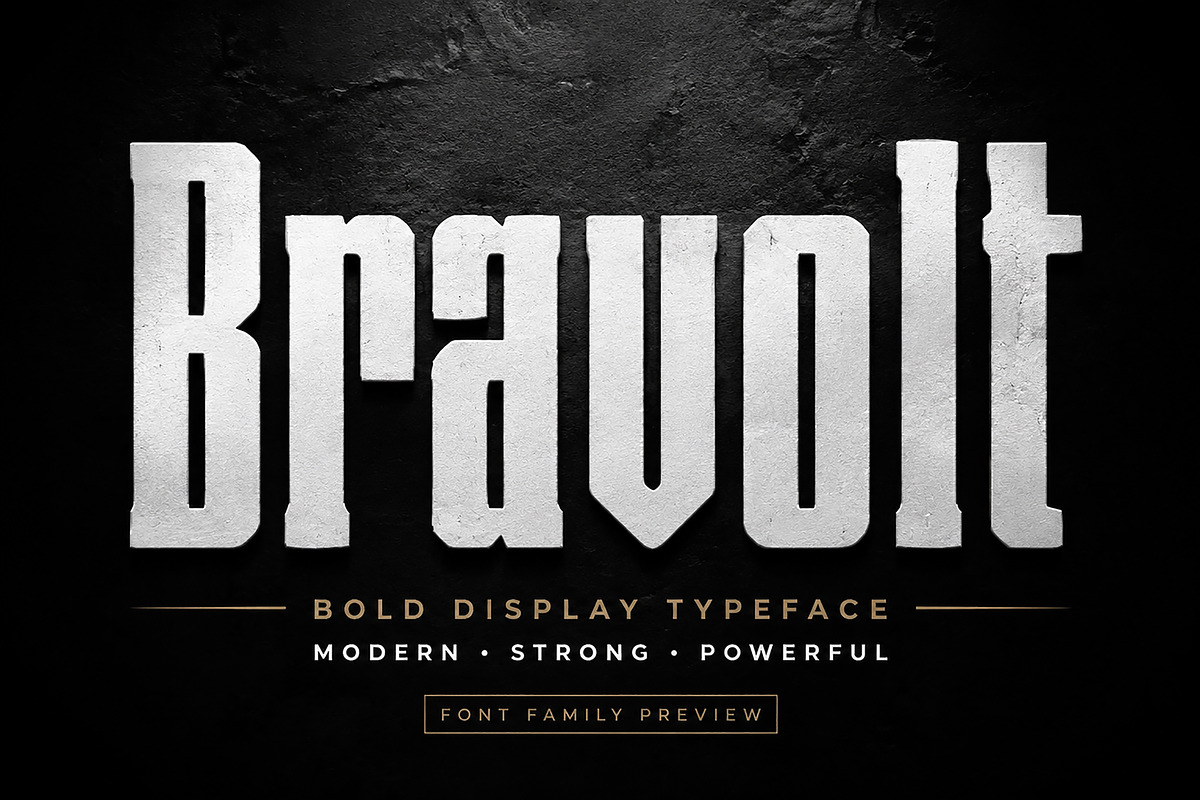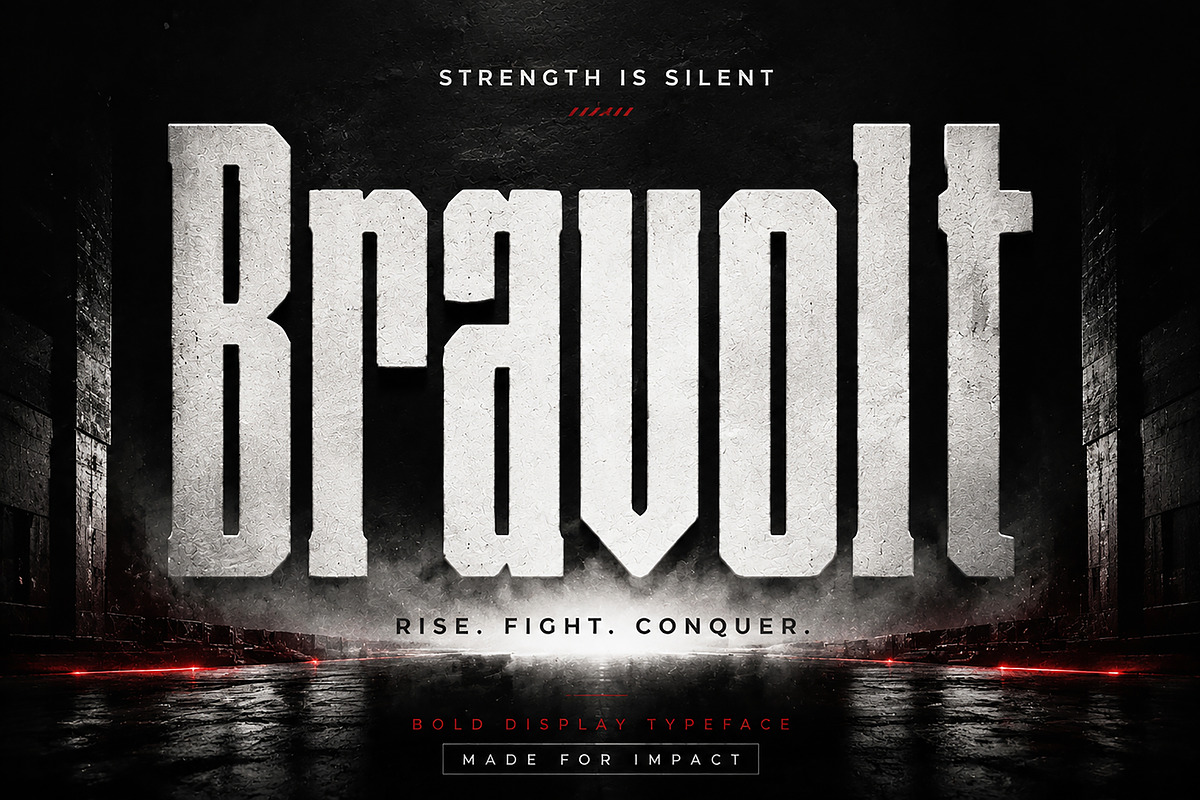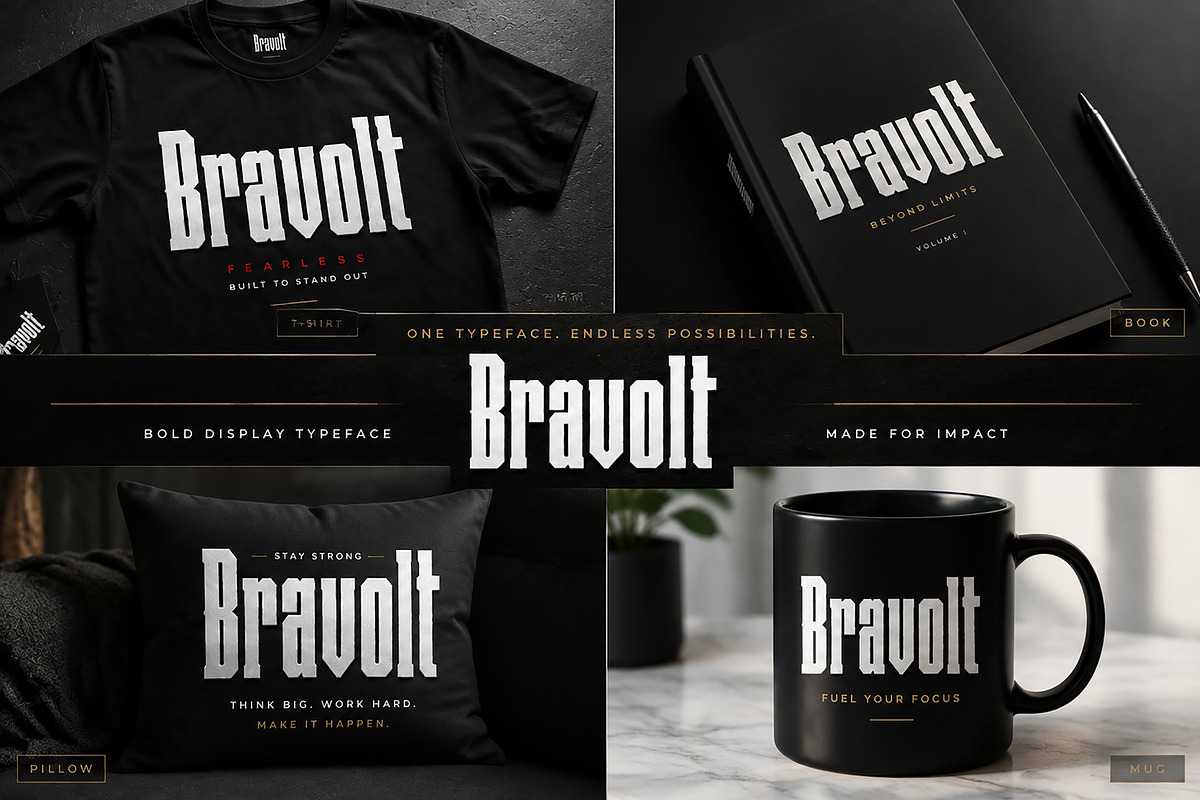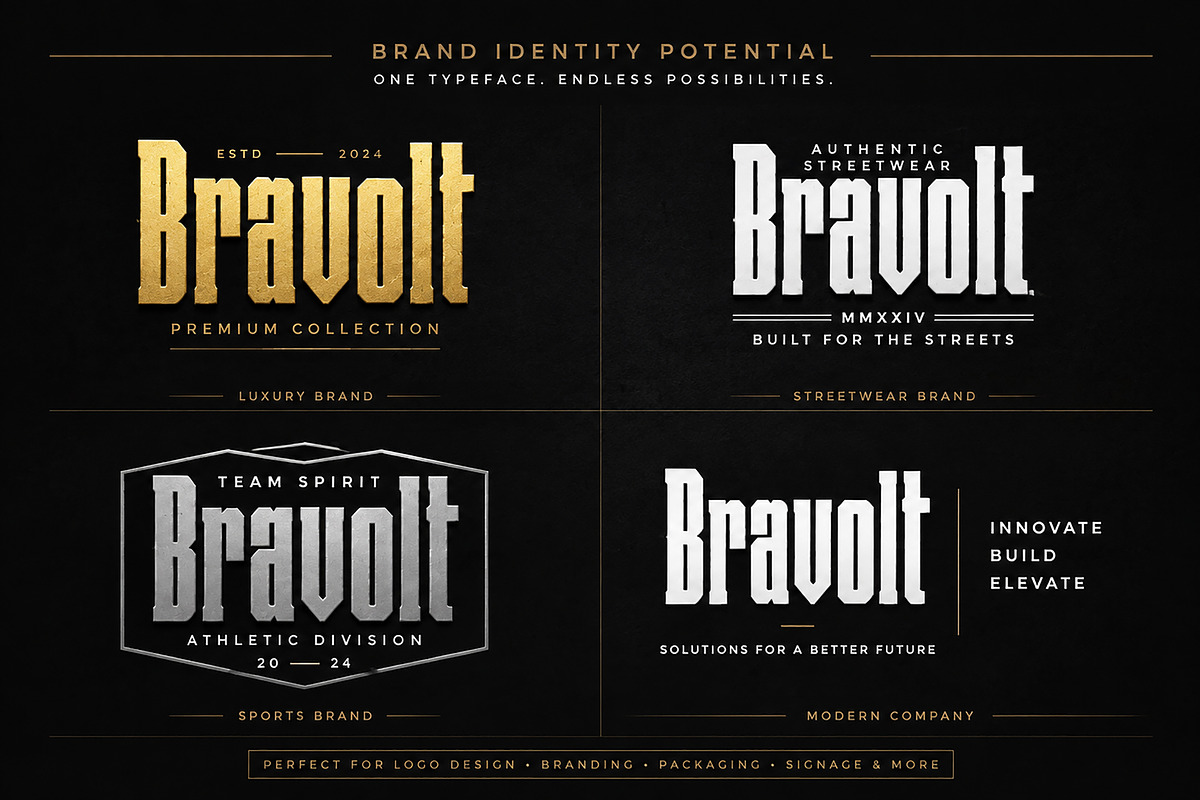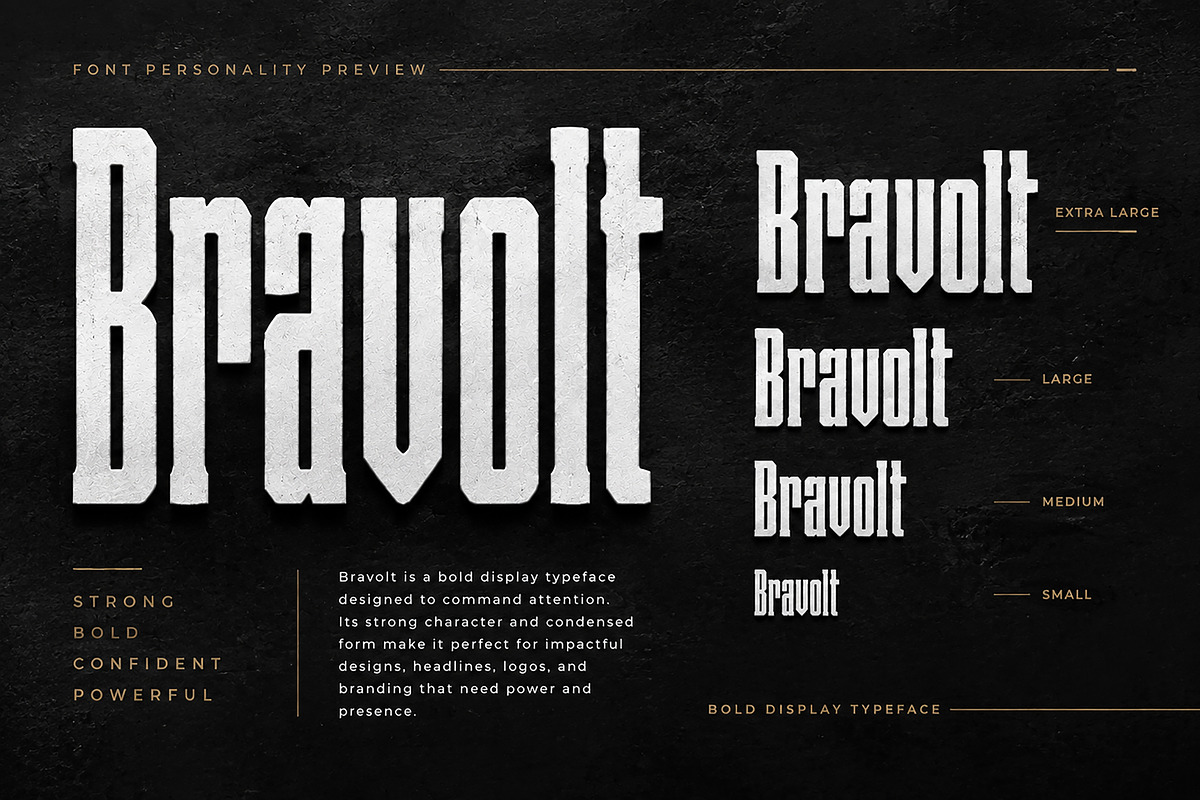
Bravolt
Bravolt – Bold Display Typeface
Bravolt is a powerful bold display typeface designed to create a strong visual impact. Featuring a condensed, heavy, and confident character, Bravolt is perfect for projects that need a modern, aggressive, and premium look.
With its unique letter structure and strong presence, Bravolt works beautifully for branding, logos, posters, headlines, sports designs, gaming graphics, apparel, packaging, magazine covers, and modern advertising layouts.
Designed for designers who want their typography to stand out, Bravolt brings strength, personality, and a professional display style to every project.
Brand Identity
Streetwear & Apparel Design
Sports Branding
Gaming Titles
Movie & Poster Design
Event Graphics
Music Covers
Headlines & Advertising
✓ Bold Display Typeface
✓ Strong Condensed Letter Style
✓ Modern & Powerful Appearance
✓ Perfect for Large Headlines
✓ Professional Branding Use
✓ Clean and High-Impact Design
Bravolt is created to help your designs look bold, memorable, and professional.